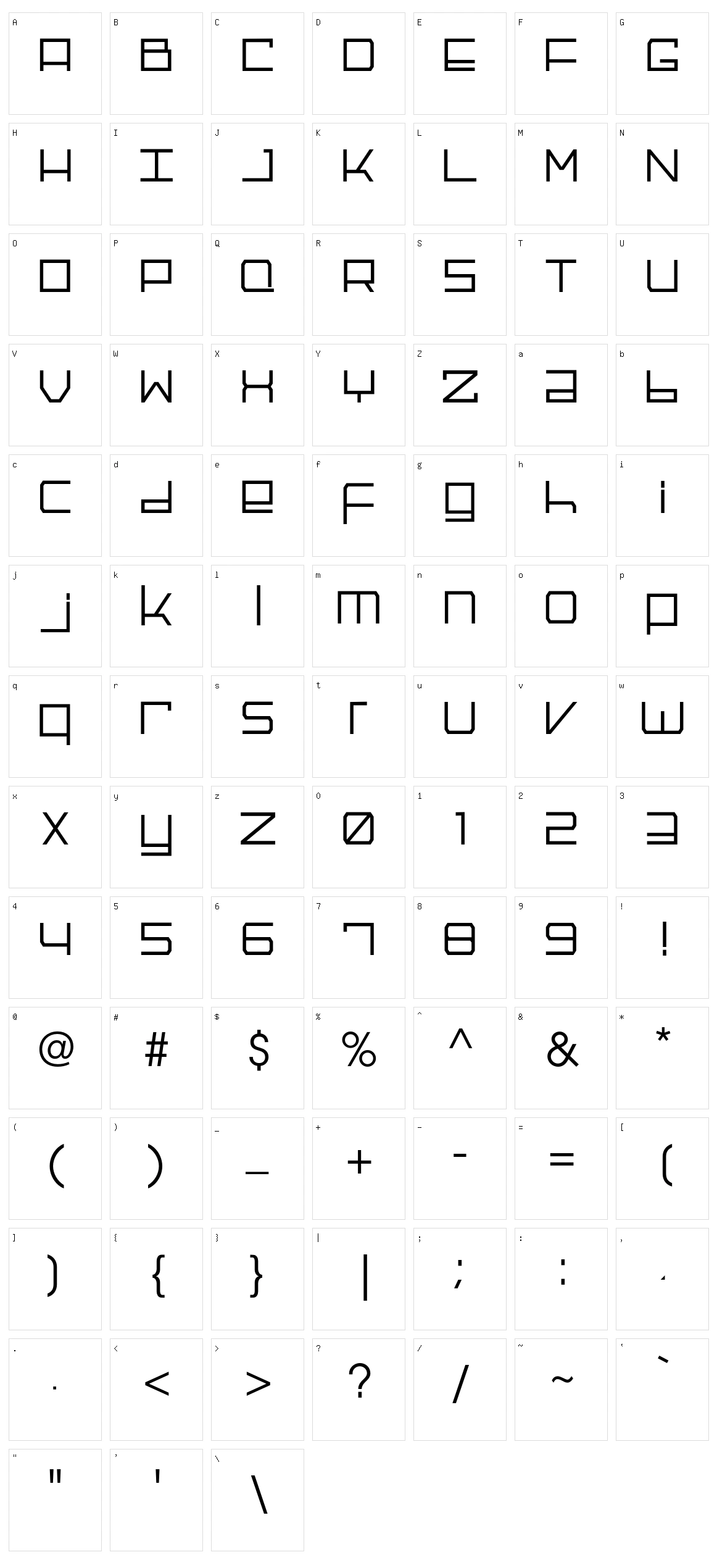
The free font Galactik is carefully designed by WesLo Fonts, showcasing a thoughtful balance of creativity and usability and falls under the Square font style. When you download the ZIP file, it contains only 8.5 KB of font files, making it lightweight and quick to download. Please review the license details below to understand permitted usage and distribution rights. If license information is not available, we recommend using this font for personal projects only or contacting the author directly for commercial usage permissions.